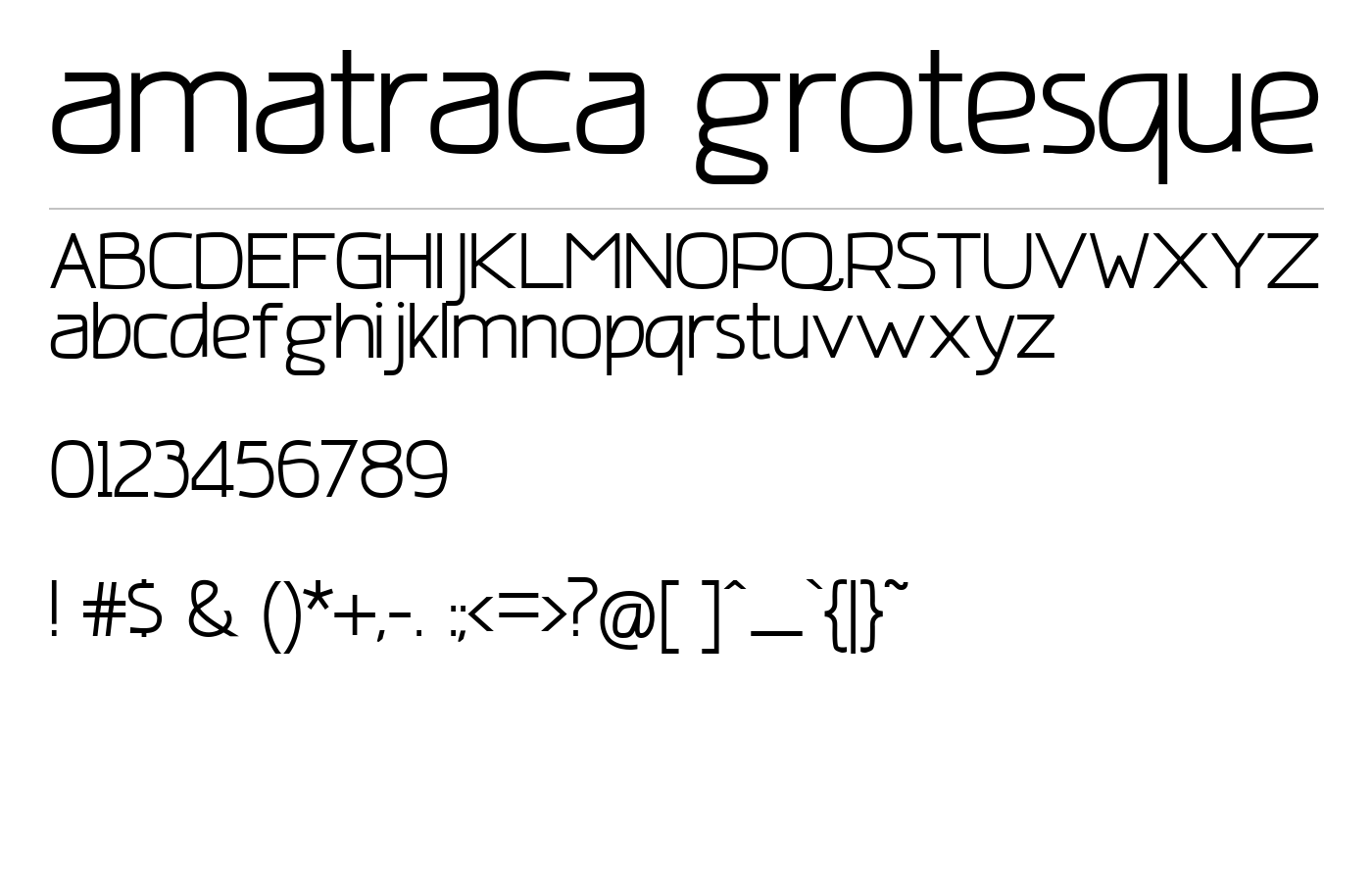
Amatraca Grotesque is a sleek, modern sans serif font characterized by its clean, narrow letterforms and subtle geometric touches. Its light weight and tall x-height give it an elegant yet approachable feel, making it perfect for contemporary branding, editorial headlines, and digital interfaces where clarity and a refined style are essential. This font works well in designs that require a minimalist but distinctive look, lending a sense of professionalism with a fresh, creative edge.
amatraca grotesque Font